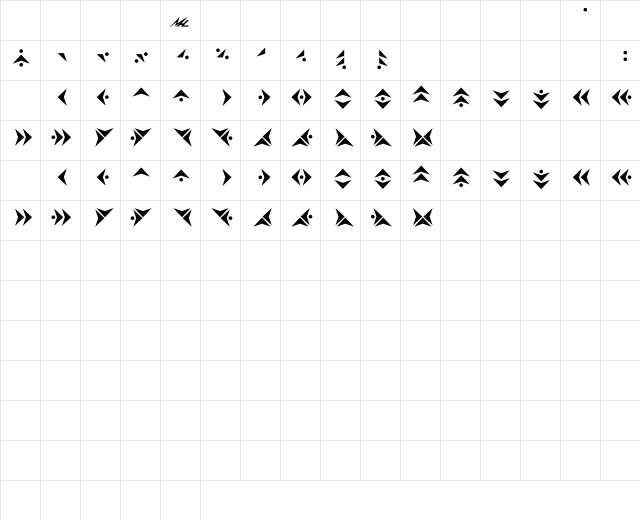
Complete Pak'ma'ra Bold glyph index. Displaying only characters natively supported by Pak'ma'ra Bold font.
Pak'ma'ra is a composed and adaptable typeface that performs quietly and consistently across a wide range of design contexts. Its bold stroke weight gives it real presence on the page.